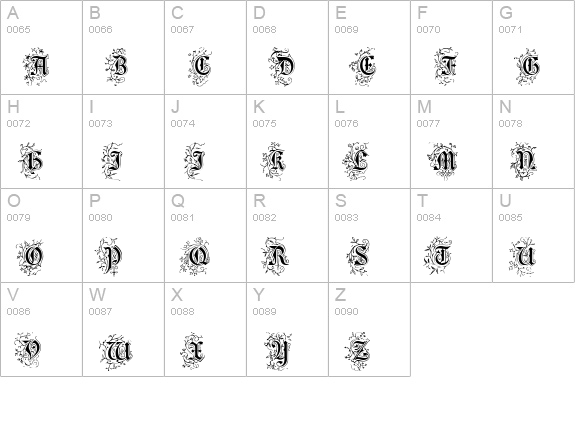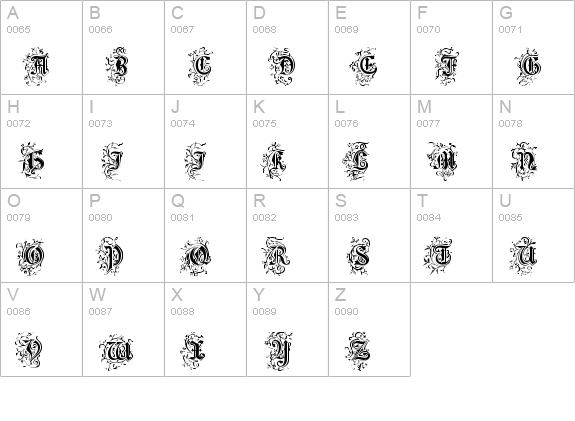
Foliar Initials Font Details
Foliar Initials font is a beautifully crafted typeface that exudes elegance and sophistication. Inspired by intricate foliage patterns, this font features delicate swirls and ornate details that add a touch of charm to any design project. The graceful curves and intricate lines of Foliar Initials font make it perfect for use in branding, invitations, and other creative projects where a touch of sophistication is needed. Best of all, Foliar Initials font is available for free download at FontsMarket.com. Whether you're a professional designer looking to add a unique flair to your projects or a hobbyist looking to explore new fonts, this font is a fantastic choice. Download Foliar Initials font today and elevate your designs with its timeless beauty and elegance.